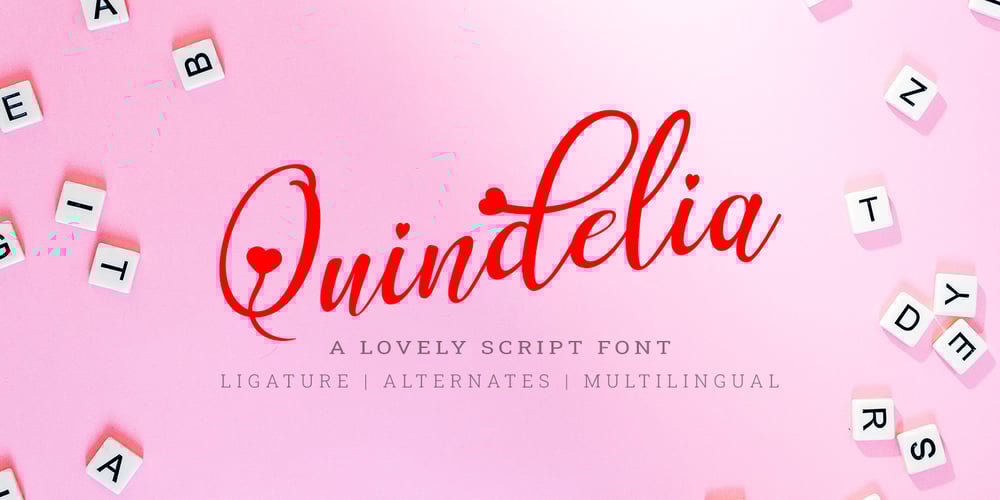
Quindelia
Quindelia font
Quindelia Font Family was designed by Oki Candra Setiawan and published by OCSstudio. Quindelia contains 1 styles and family package options. Quindelia is a beautiful font with lots of love and affection in it, unique ligatures, smooth and elegant strokes, containing six alternatives in it.Quindelia is perfect for weddings, events, invitations, cards, quotes, displays, logos, blog sliders, special addresses, stamps, packaging, greeting cards, romance, etc.** Thank you for downloading, hopefully it’s useful **